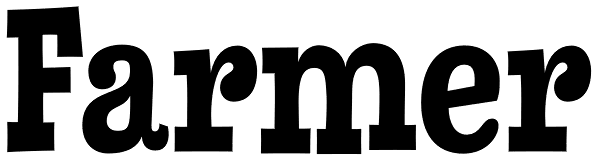
Farmer
The OpenType version of Farmer contains two sets of slightly different upper-case letters. The alternate version is accessible as Titling Caps in OpenType feature enabled software. Mixed and matched they create a strong and persuasive headline, logo...